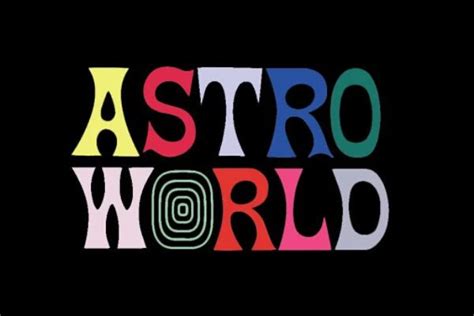
Astroworld Font Generator. This font was created by nick curtis. Simply generate and share it with your friends.
Simply generate and share it with your friends. Your astroworld inspired logo will be automatically generated and available for you (right click on the image to download it). Web astroworld font is a fancy and retro typeface that is based on american recording artist travis scott in support of his third studio album astroworld 2018. Web simply enter your text and then select the generate image button. Web text generated by us for you. Generate cool and amazing fonts by using astroworld font generator. This font was created by nick curtis. Web the following tool will let you create text graphics and logos from your custom text using astroworld tour font, after generating an image, you can download it or click on the embed button to get links to embed the.
Web the following tool will let you create text graphics and logos from your custom text using astroworld tour font, after generating an image, you can download it or click on the embed button to get links to embed the. Simply generate and share it with your friends. Web simply enter your text and then select the generate image button. Web text generated by us for you. This font was created by nick curtis. Your astroworld inspired logo will be automatically generated and available for you (right click on the image to download it). Generate cool and amazing fonts by using astroworld font generator. Web the following tool will let you create text graphics and logos from your custom text using astroworld tour font, after generating an image, you can download it or click on the embed button to get links to embed the. Web astroworld font is a fancy and retro typeface that is based on american recording artist travis scott in support of his third studio album astroworld 2018.